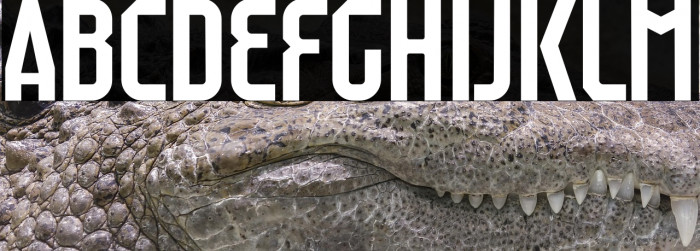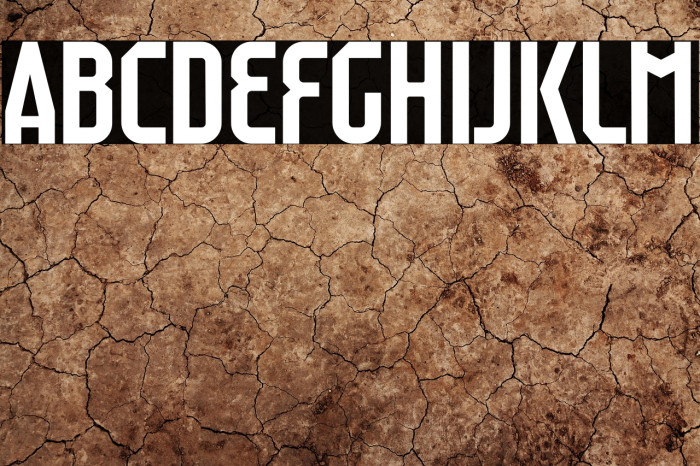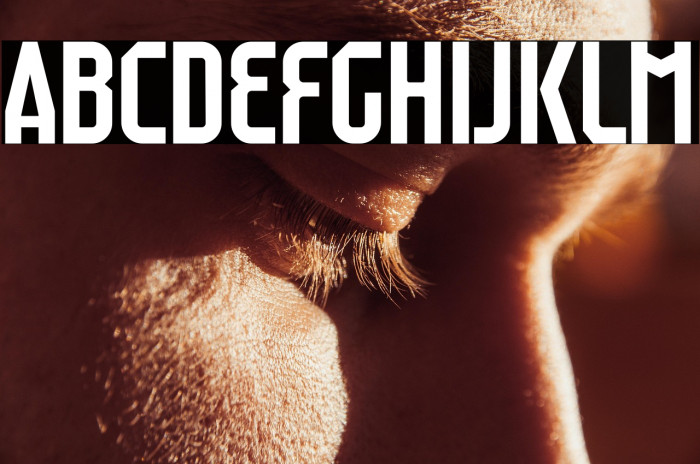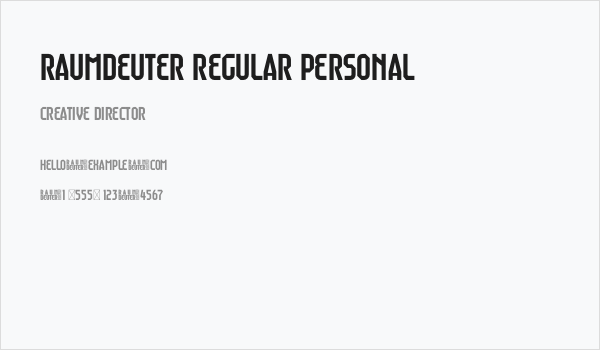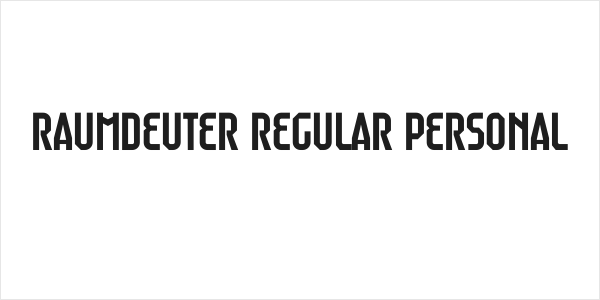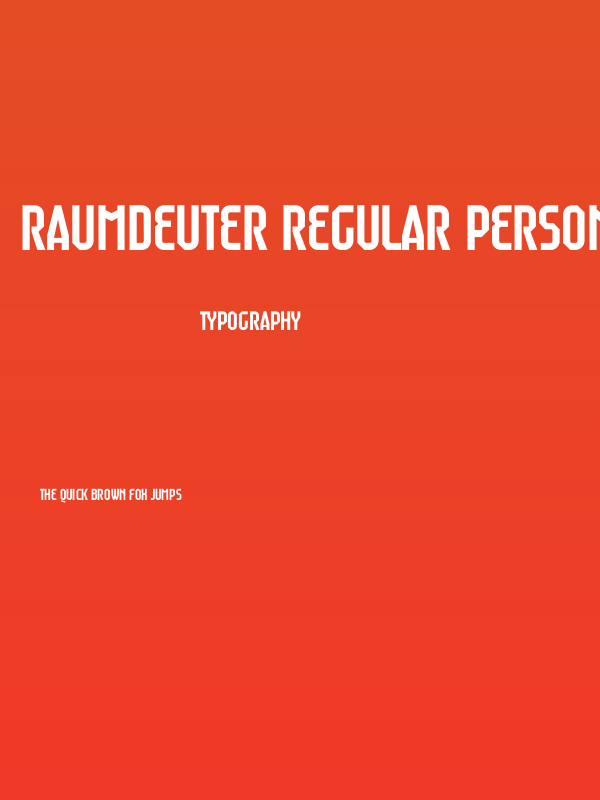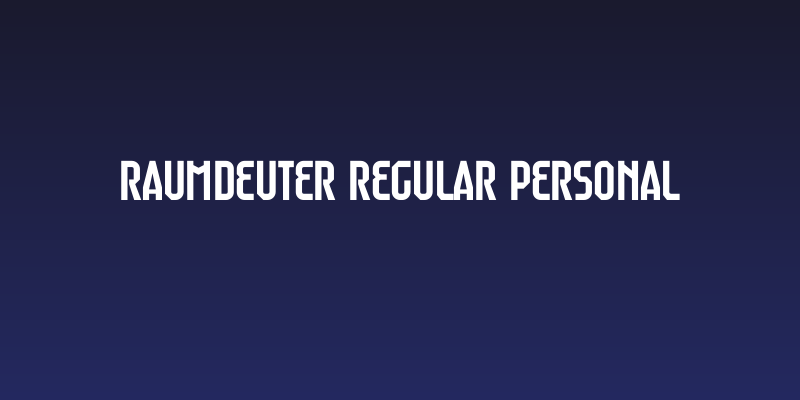
Raumdeuter Regular Personal Font
Raumdeuter Regular Personal Description
This font features a bold and geometric design, characterized by its sharp angles and clean lines. The uppercase letters are tall and narrow, giving a modern and structured appearance. The numbers and special characters maintain the same angular style, ensuring consistency throughout. The font's unique aesthetic makes it stand out, with a futuristic and industrial feel that is both eye-catching and versatile.